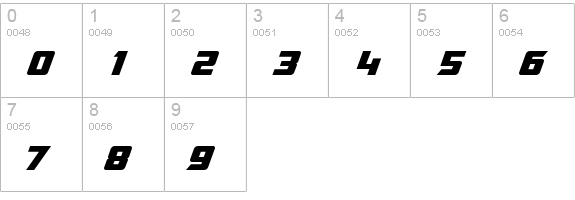
SF TransRobotics Bold Italic Font Details
SF TransRobotics Bold Italic is a strong, high-contrast, italic variant in the SF typeface family \xE2\x80\x94 well suited to headlines, attention-grabbing titles, and strong calls-to-action.
SF TransRobotics Bold Italic font is a striking and futuristic typeface that combines boldness and elegance. This font is perfect for projects that require a touch of edginess and innovation. With its unique design, SF TransRobotics Bold Italic font brings a sense of modernity and technological advancement to any text or design. Featuring strong and angular letterforms, this font exudes confidence and boldness. The italic slant adds a touch of dynamism and movement, making SF TransRobotics Bold Italic font a truly eye-catching choice. Whether used in headlines, logos, or branding materials, this font will make a powerful statement. What makes SF TransRobotics Bold Italic font even more appealing is the fact that it is available for free download at FontsMarket.com. This means that anyone can access this stunning typeface without having to worry about any additional costs. Whether you are a designer, a student, or simply someone who appreciates beautiful typography, SF TransRobotics Bold Italic font is freely accessible to all. Don't miss out on the opportunity to enhance your designs with this incredible font. Download SF TransRobotics Bold Italic font today from FontsMarket.com and witness its transformative power in your projects. Let your creativity soar with this exceptional typeface that effortlessly combines boldness, elegance, and a touch of futuristic charm.